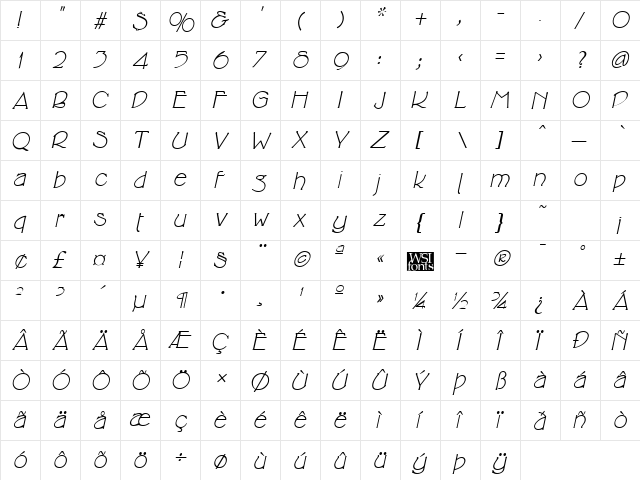
Cricket Italic
Design Context for Cricket Typeface
Cricket is a composed and adaptable typeface that performs quietly and consistently across a wide range of design contexts. Its italic angle brings a sense of urgency and motion to the letterforms.
Pro Tip: Use Cricket for emphasis, pull quotes, and subheadings where its slanted energy can add rhythm to the layout.